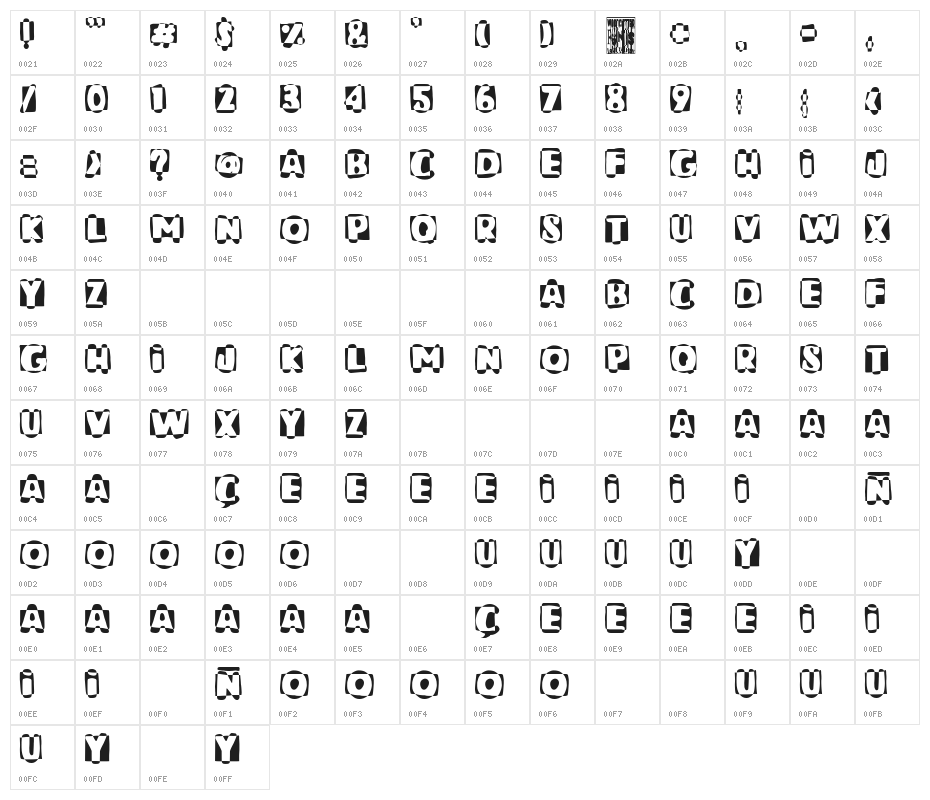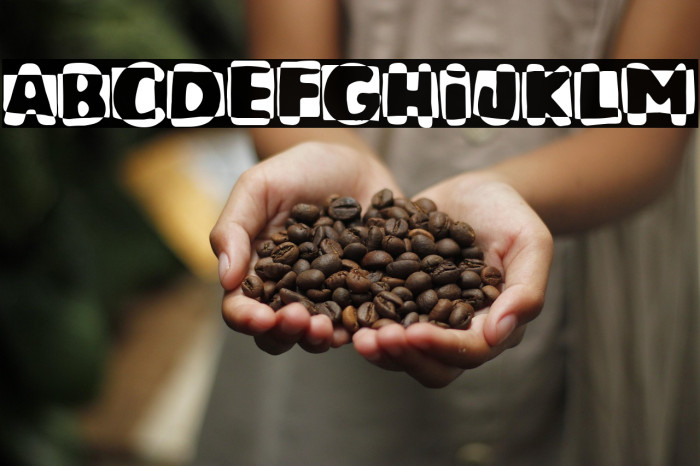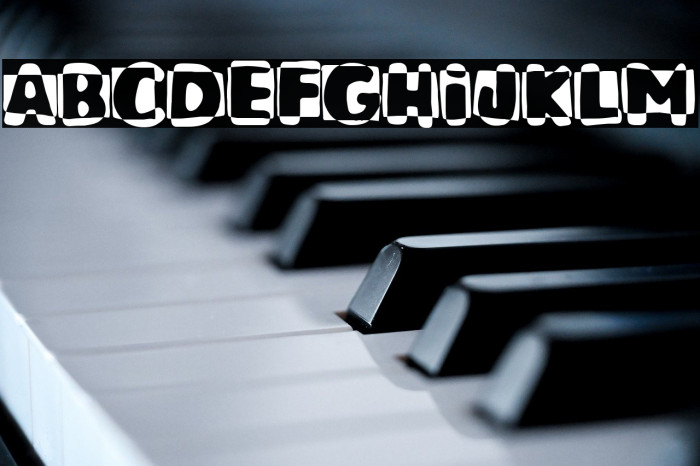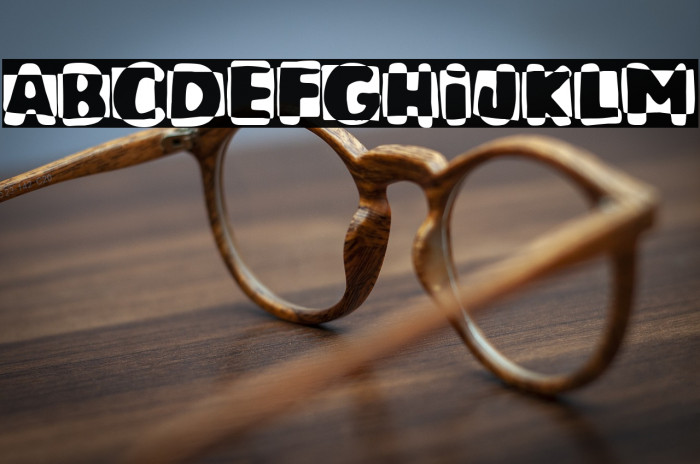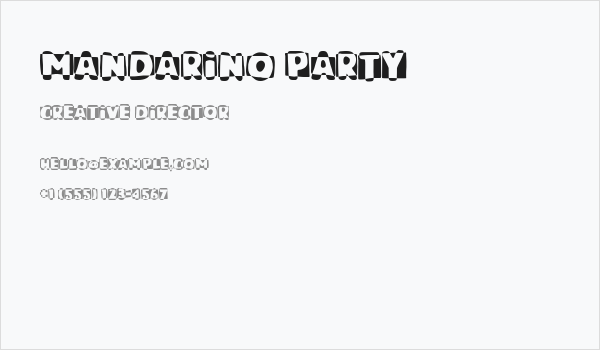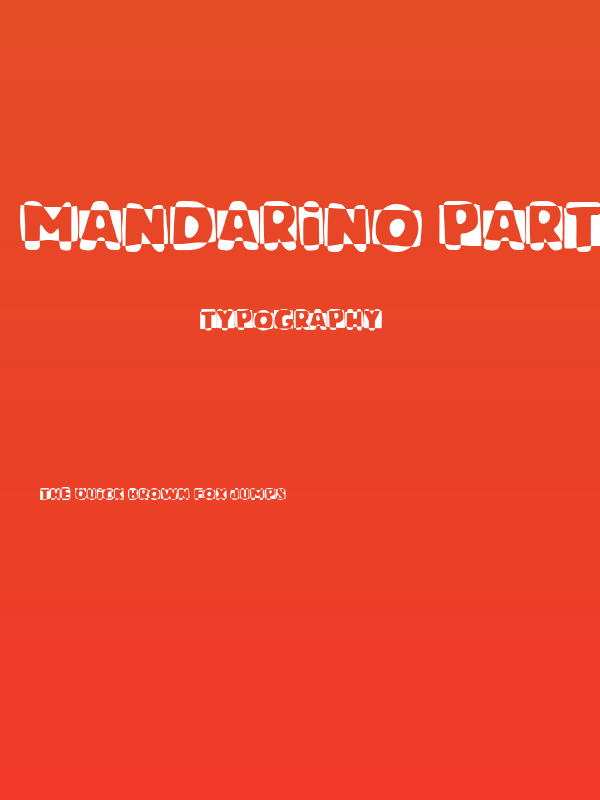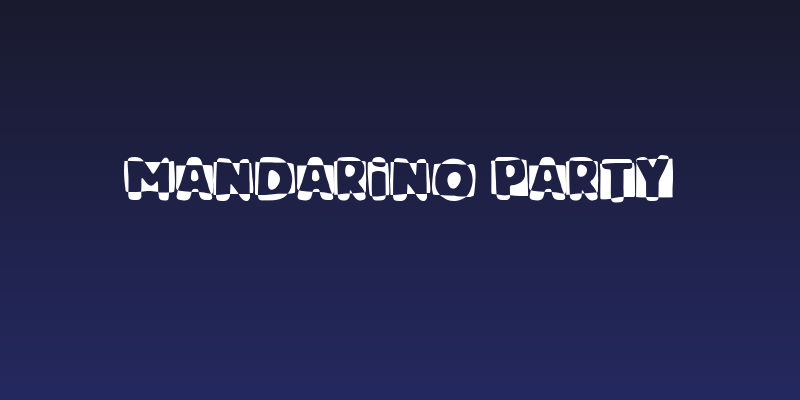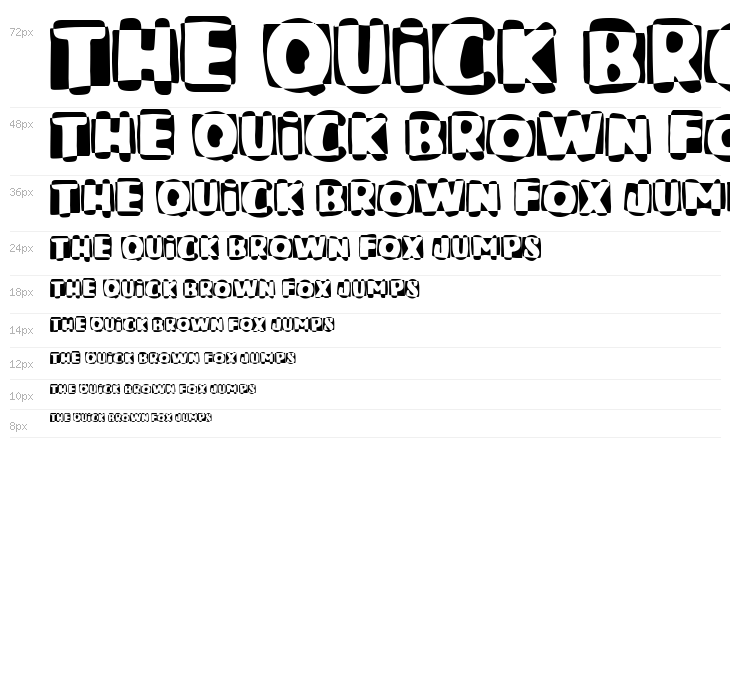
Mandarino Party Font
This font features a playful and bold design with a three-dimensional effect, achieved through the use of thick, rounded letters with a shadow-like outline. The characters are uppercase and lowercase, with a consistent, chunky appearance that gives them a strong visual presence. The numbers and special characters follow the same style, ensuring uniformity across all glyphs. The font's design is reminiscent of retro or comic book styles, making it eye-catching and suitable for creative projects. Its boldness and unique style make it stand out, perfect for grabbing attention in various design contexts.
| Proposed Projects | Ideal for posters, comic books, children's books, party invitations, and playful branding. |